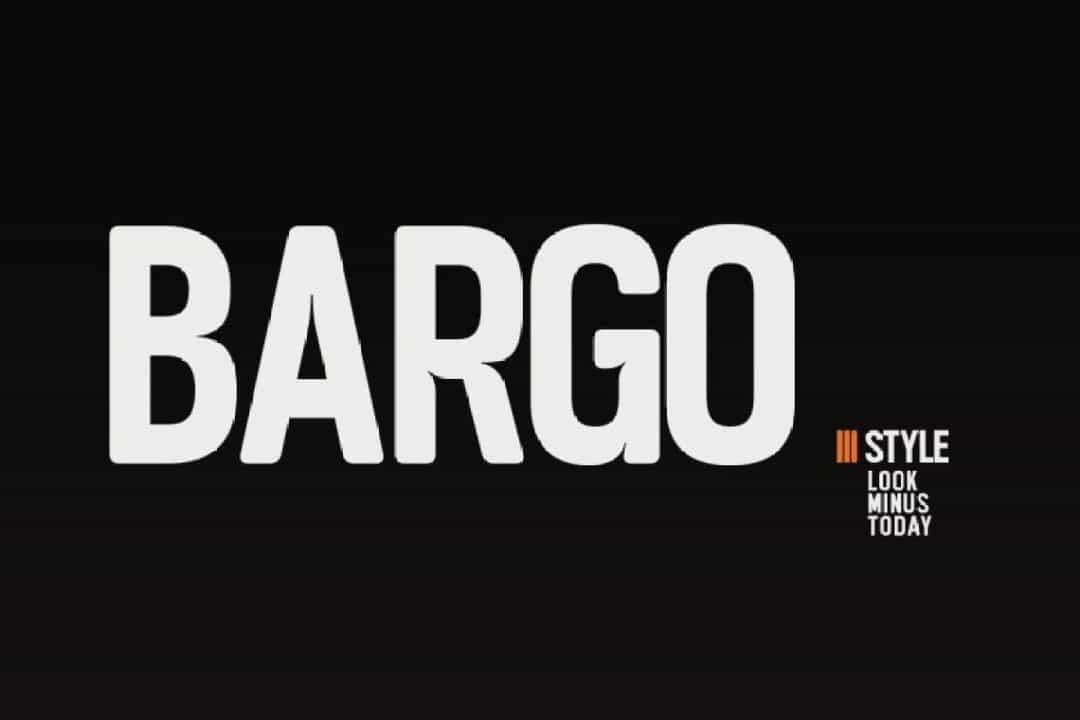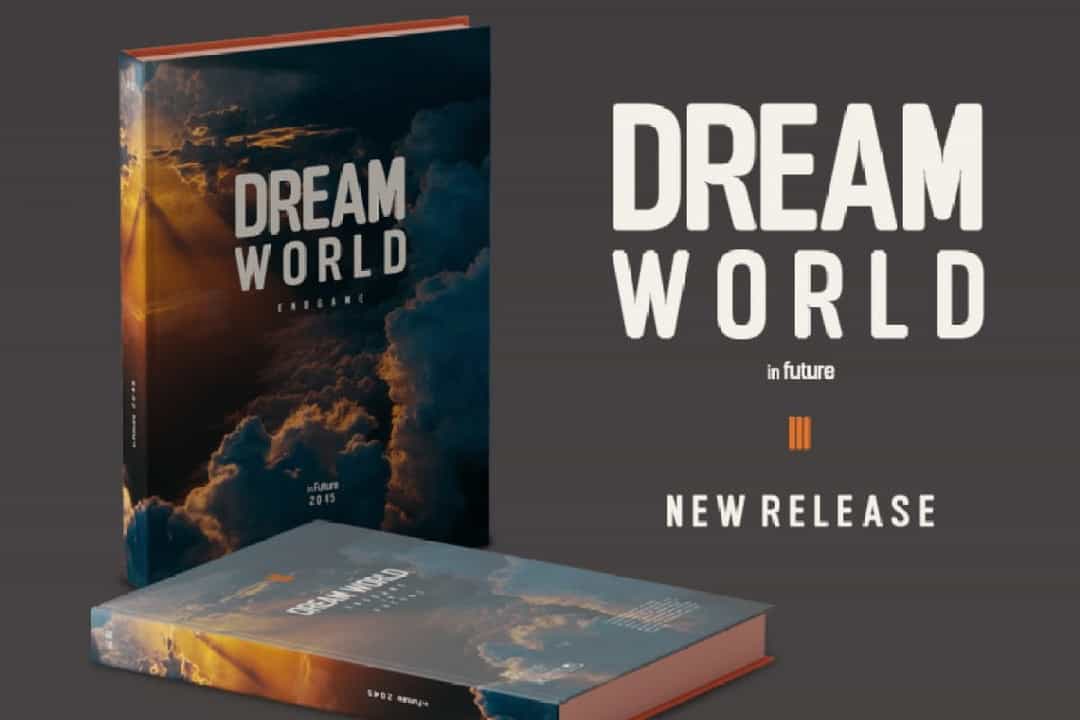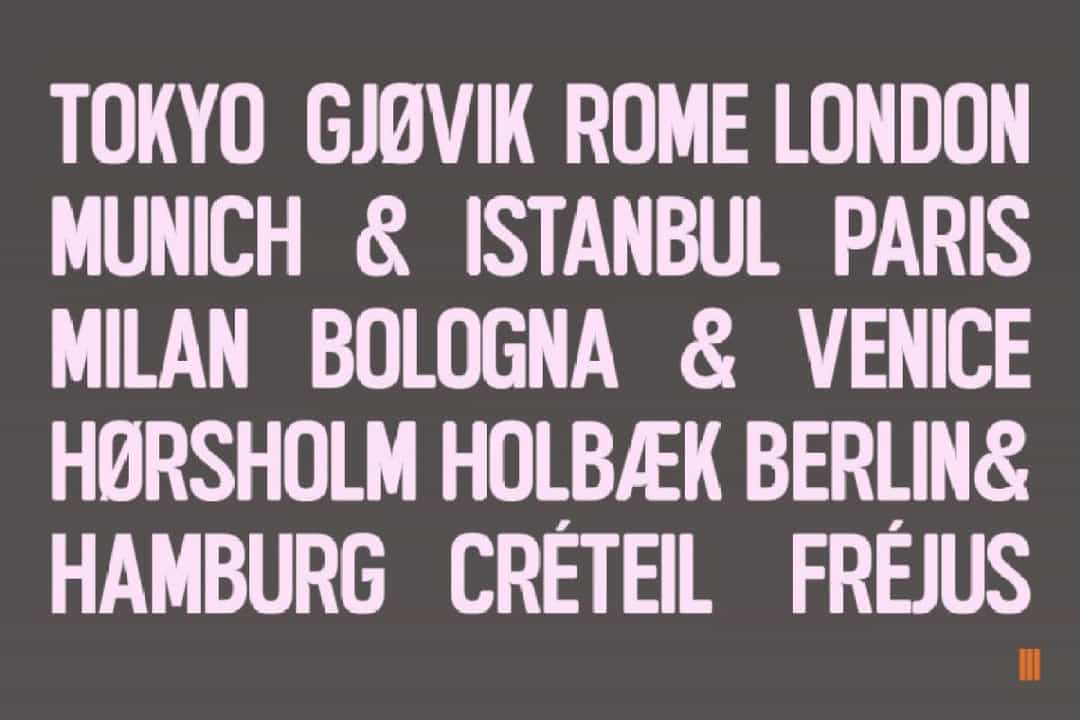
Discover Bargo Font, part of the Sans Serif Basic collection—a versatile and unique font perfect for adding a personal touch to your projects. Download it for free and enjoy crafting designs with style, from invitations to social media posts. This font is available exclusively for personal use, giving you the freedom to create without limits. Unlock your creativity with Bargo Font today!
Look Minis Today is delighted to present Bargo Sans Serif 3 styles of Font from Look Minis Today. These three font styles combine the look of font that provides an alternative perspective: regular font provides an impression of modern masculinity while attractive; round and rounded font offers an edge, showing its futuristic design; while regular offers a modern masculine appearance and attractiveness.